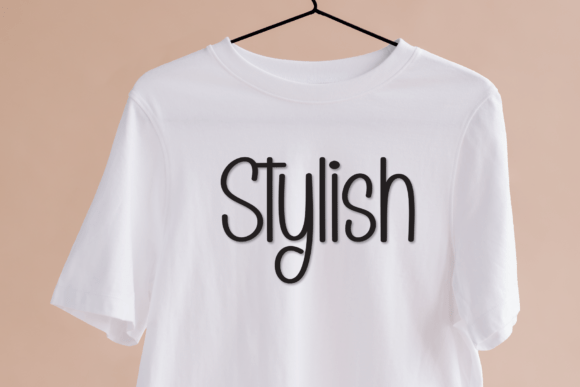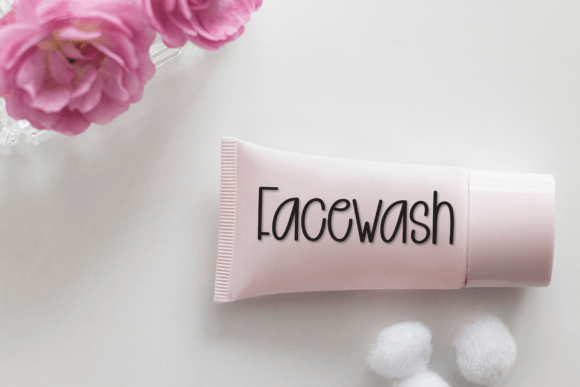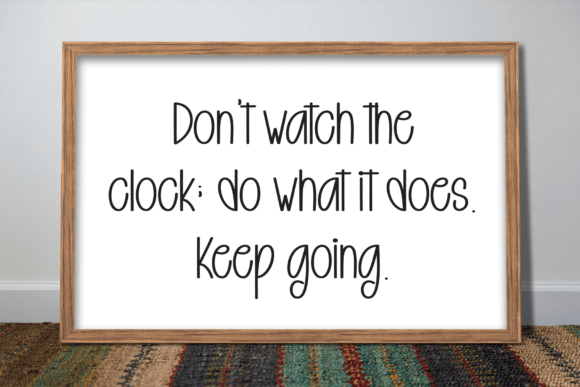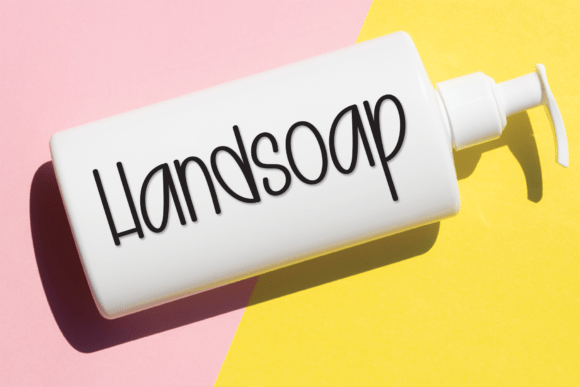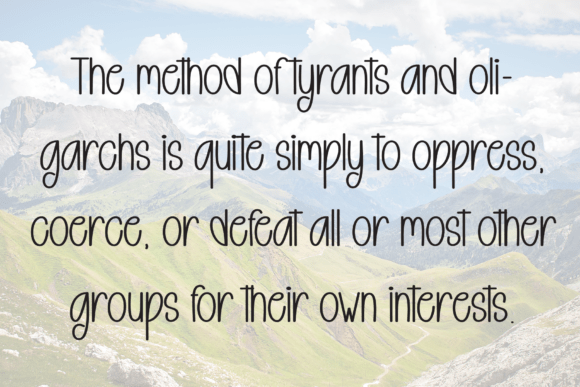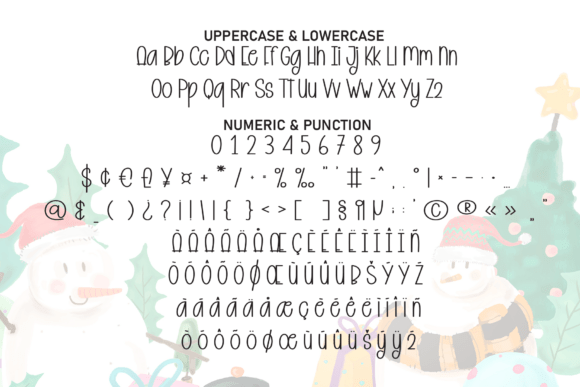
Celebrate the Magic of Christmas with Christmas Cliparts Font
The most wonderful time of the year is here, and what better way to spread the joy and cheer than with a festive font that captures the essence of the holiday season? Introducing Christmas Cliparts, a modern and unique typeface that brings a fresh, playful energy to holiday traditions. This delightful font is perfect for designers and crafters looking to add a touch of whimsy and fun to their holiday projects.
A Fresh Take on Holiday Typography
Christmas Cliparts boasts a tall, condensed silhouette and a clean, monolinear weight, creating a look that is both friendly and contemporary. The charm of this font lies in its bouncy rhythm and rounded terminals, offering a “hand-sketched” feel that is highly legible and full of personality. Its narrow proportions make it a versatile tool for a wide range of holiday projects, from greeting cards and gift tags to festive product labels and children’s seasonal branding.
Whether you are designing a menu for a winter cafe, a playful poster for a holiday market, or a set of social media headers for a festive campaign, Christmas Cliparts is the perfect choice. This font provides a joyful, handcrafted aesthetic that sparks the holiday spirit and adds a touch of magic to any project. Its unique blend of modernity and playfulness makes it an excellent addition to any designer’s toolkit.
Key Features of Christmas Cliparts Font
- Tall, condensed silhouette: Perfect for creating eye-catching headlines and titles that stand out.
- Clean, monolinear weight: Provides a crisp and modern look that is easy to read.
- Bouncy rhythm and rounded terminals: Give the font a friendly, hand-sketched feel that is full of personality.
- Narrow proportions: Make it ideal for use in a variety of applications, from small gift tags to large posters.
- Highly legible: Ensures that your message gets across clearly, even at small sizes.
Ideas for Using Christmas Cliparts Font
The possibilities are endless when it comes to using Christmas Cliparts in your holiday projects. Here are a few ideas to get you started:
- Holiday greeting cards: Create personalized cards for friends and family that stand out from the crowd.
- Festive product labels: Add a touch of holiday cheer to your products with custom labels that showcase your brand’s personality.
- Children’s seasonal branding: Create engaging and fun branding for kids’ holiday products and services.
- Social media headers: Add some holiday magic to your social media profiles and posts with eye-catching headers.
- Winter cafe menu: Create a cozy and inviting atmosphere with a custom menu that features Christmas Cliparts.
- Holiday market posters: Design eye-catching posters that showcase your products or services and attract customers.